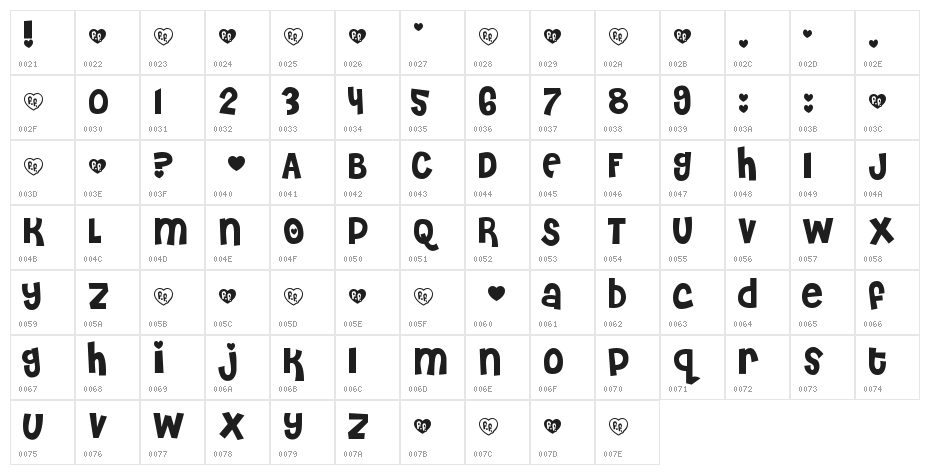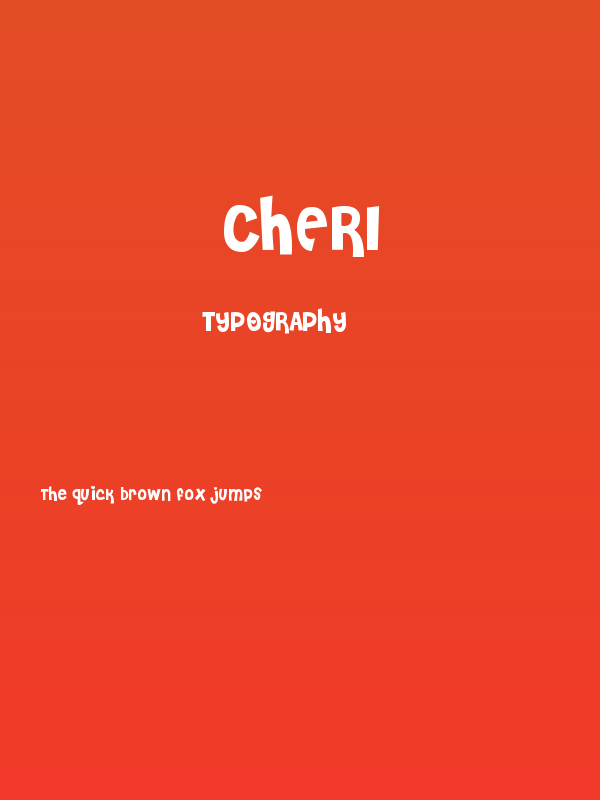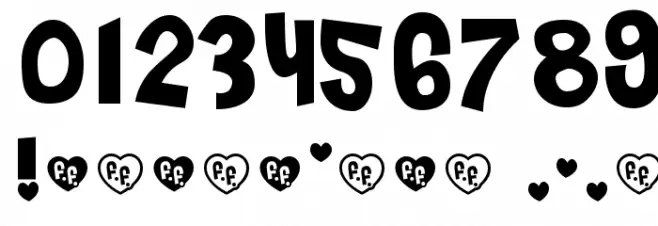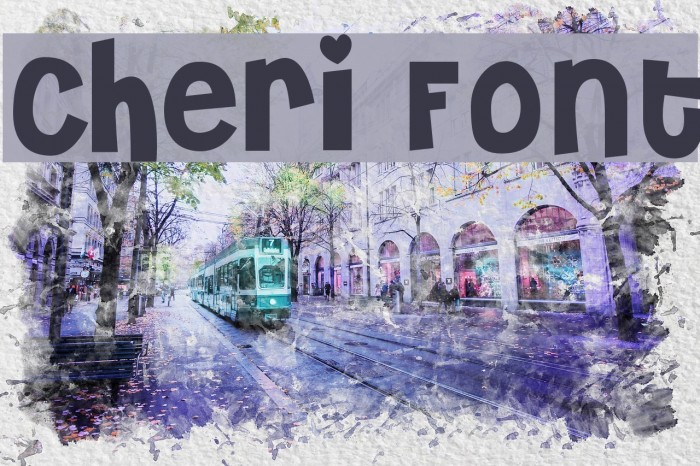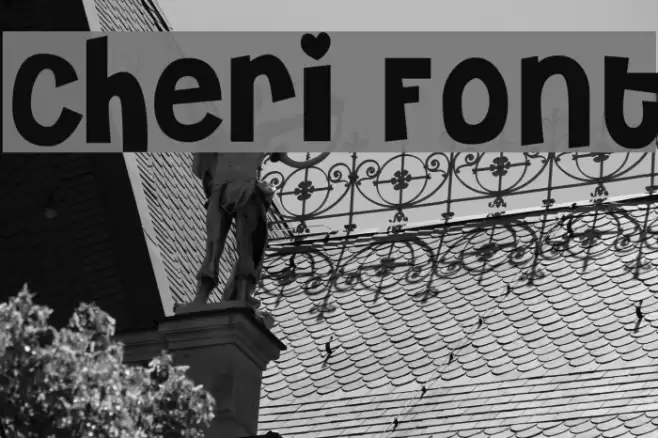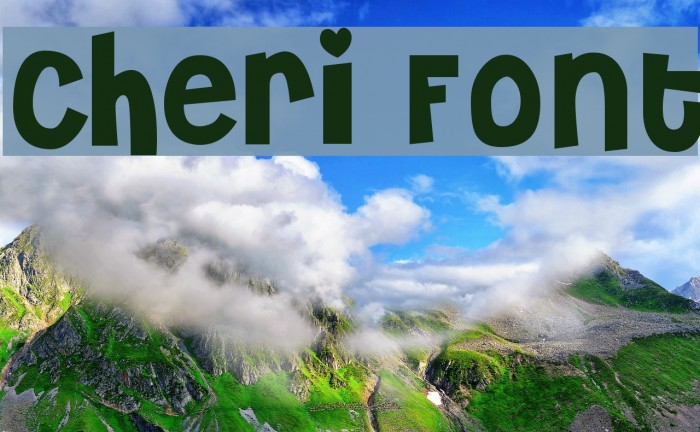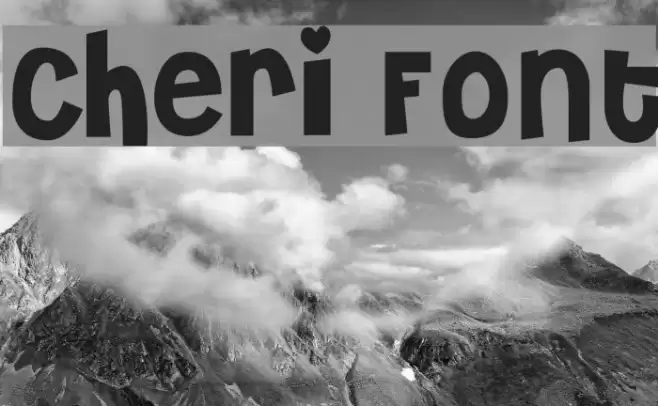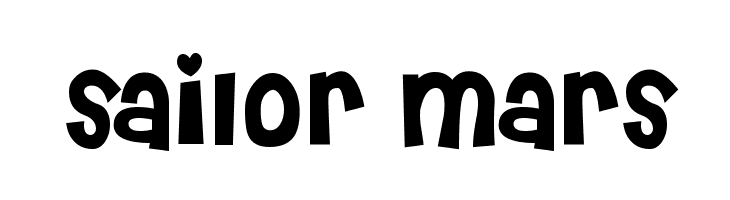
Cheri Font
Cheri Description
This playful and whimsical font features bold, rounded characters with a unique, quirky style. The uppercase letters are characterized by their thick, uneven strokes and playful curves, giving them a fun and energetic appearance. The lowercase letters maintain a similar style, with a slightly more condensed form, adding to the font's charm. The numbers are bold and consistent with the overall playful theme, making them stand out. Special characters, including hearts and symbols, add an extra layer of creativity, making this font ideal for projects that require a touch of whimsy and fun.
| Overall Style | Whimsical |
| Use Case | Headlines, Logos, Creative projects |
| Proposed Projects | Ideal for children's books, playful branding, party invitations, and creative posters. |